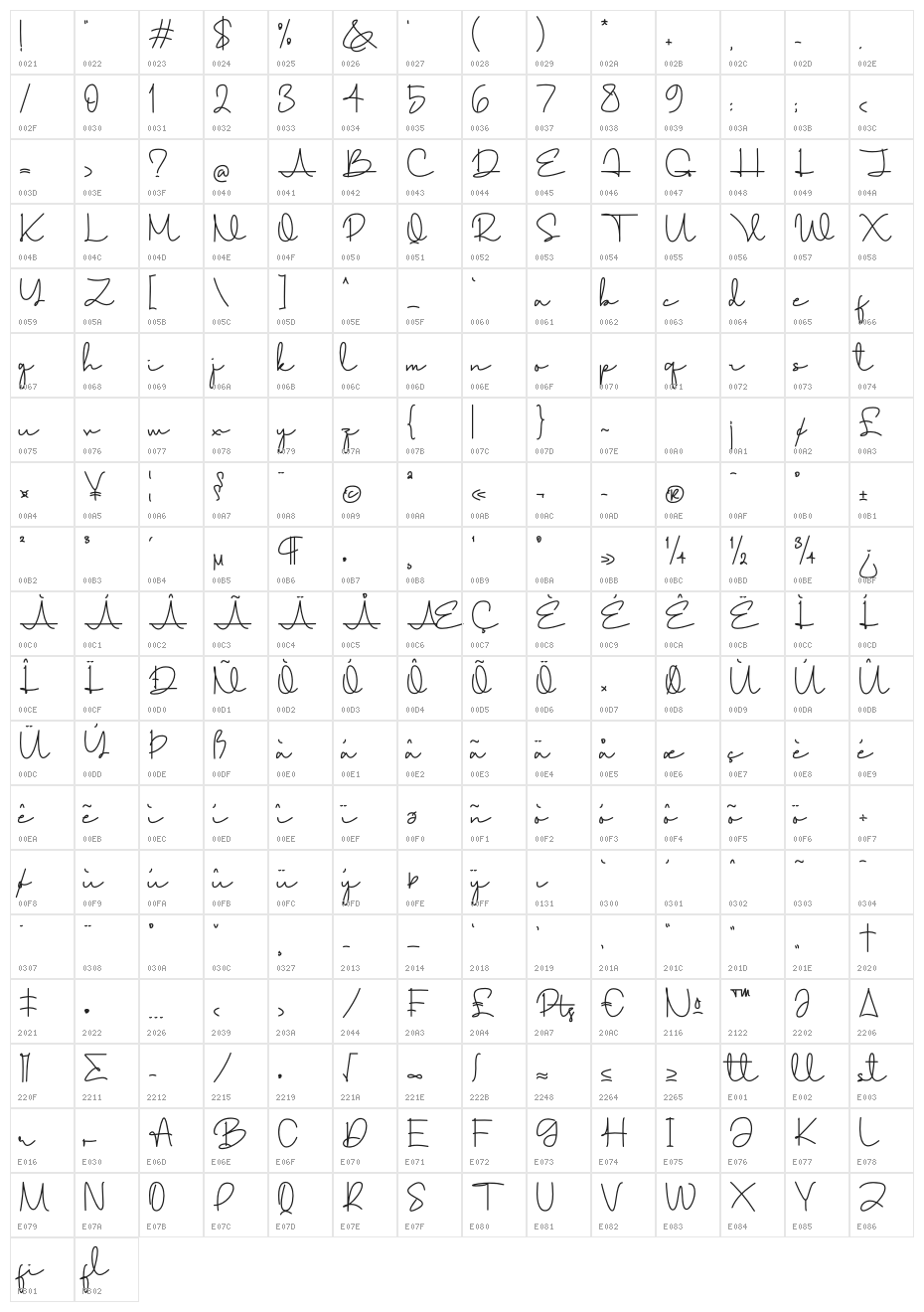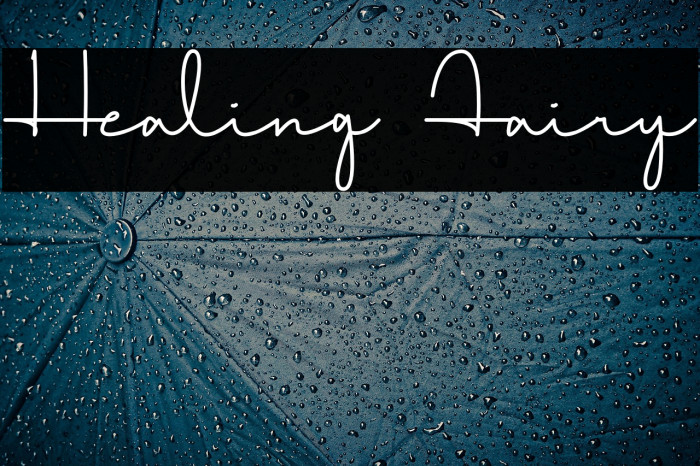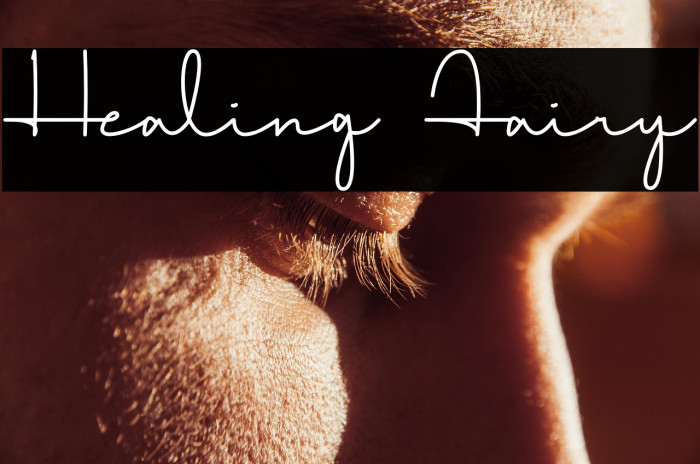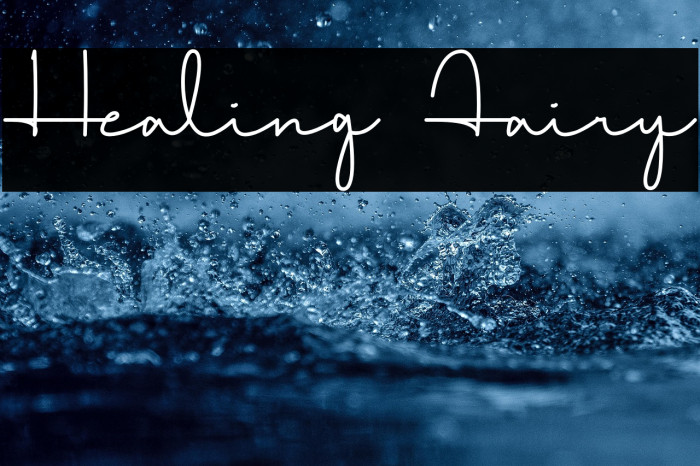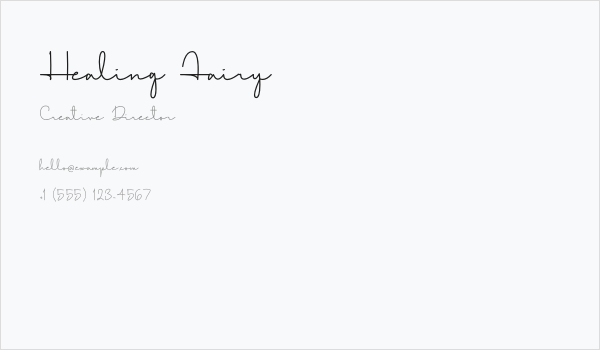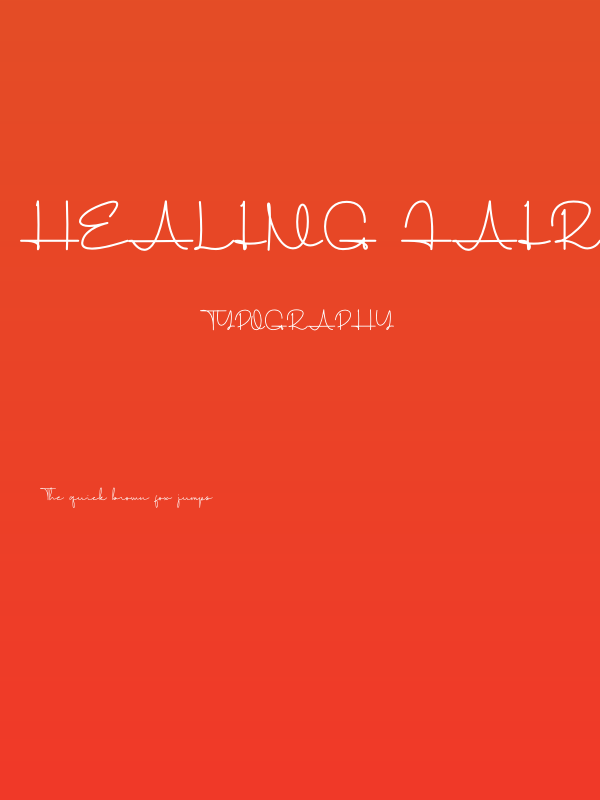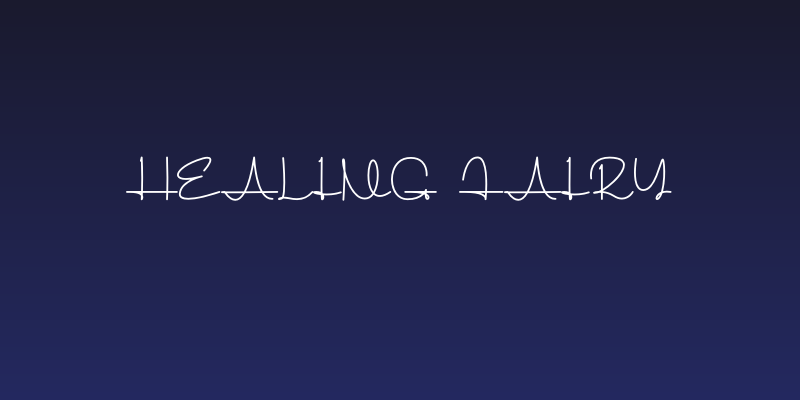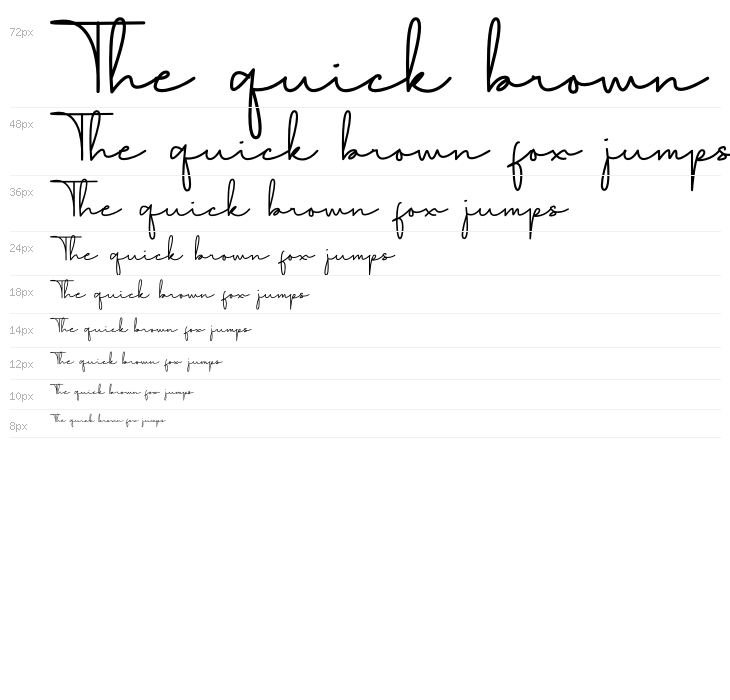
Healing Fairy Font
Healing Fairy Description
A delicate, handwritten script font with tall ascenders, rounded forms, and a consistent thin stroke, evoking a whimsical and airy feel. The characters are loosely connected, with generous spacing and a casual, flowing rhythm.
| Overall Style | Whimsical, Casual, Airy |
| Use Case | Logos, Headlines, Decorative text, Invitations |
| Proposed Projects | Greeting cards, invitations, personal branding, inspirational quotes, feminine product packaging. |